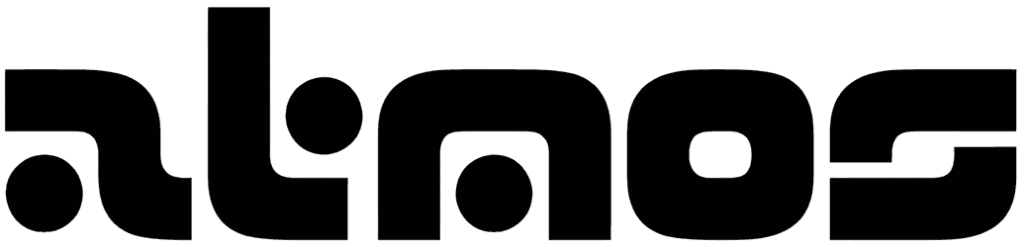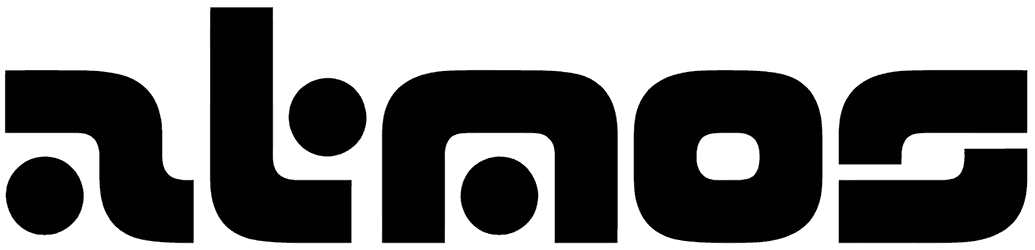
Atmos Font
You can immediately bewilder all of your audience with the high quality of your artwork that is designed with the help of a techno font such as Atmos. Due to its unique and geometrical style, it carries a feeling of courage, risk-taking, dynamism, or futurism.
If you really crave to utilize this Y2K font in posters, video game brochures, business cards, flyers, or logos, it would be better to ignore the lack of uppercase letters and poor readability.